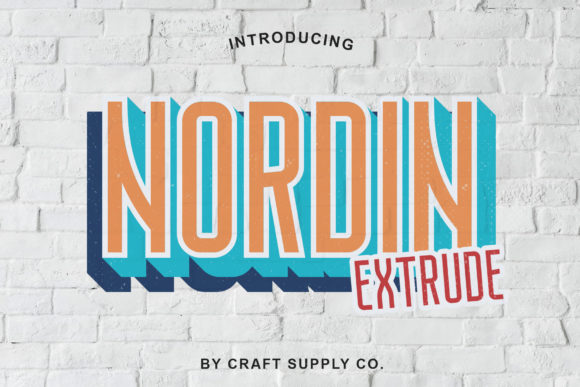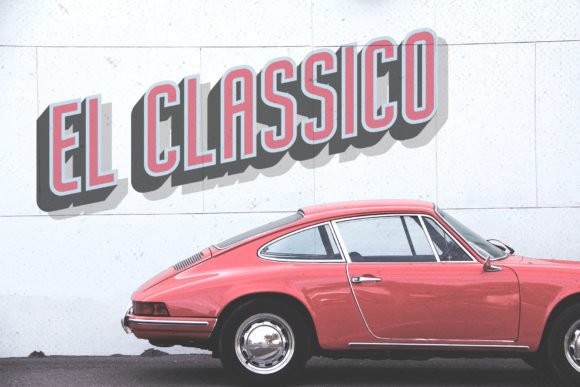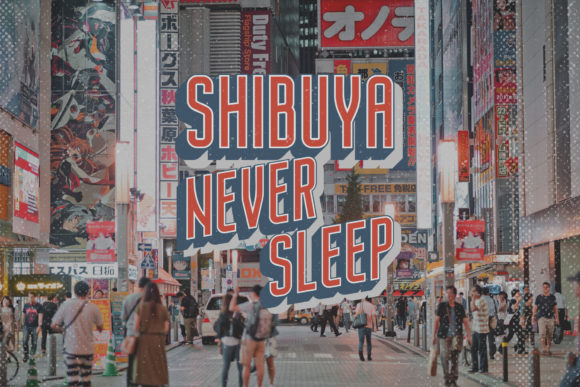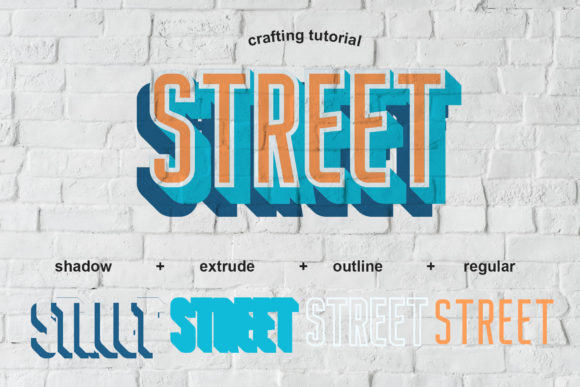
Nordin Extrude Family Font
About the Nordin Extrude Family Font
Unleash your creativity with Nordin Extrude Family Font, a versatile font perfect for a wide range of applications. The Nordin Extrude is am amazing sans serif font family. It includes 7 layerable variations for chromatic use.
It’s the result of an exploration of retro American and European bold sans serif lettering for advertising.
It’s suitable for logos, greeting cards, quotes, posters, branding, name cards, stationary, design titles, blog headers, art quotes, typography art, modern envelope lettering and book designs.
Nordin Extrude’s bold, retro-inspired aesthetic makes it ideal for headlines, posters, and branding projects requiring a strong visual impact. It excels in short, impactful text applications where its layered variations can add depth and visual interest. However, its weight and character spacing make it less suitable for body text or UI elements where readability is paramount. Avoid using it for long paragraphs or small sizes.
Pairing Nordin Extrude effectively depends on the desired effect. For a modern, slightly edgy feel, consider pairing it with a clean geometric sans-serif like Futura or a minimalist serif like Garamond. To emphasize its retro charm, a script font like Playfair Display or a more traditional serif like Didot could work well. Avoid pairing it with overly playful or decorative fonts, which might clash with its assertive character.
The overall personality of Nordin Extrude is confident and assertive, conveying a sense of vintage-inspired modernism. It’s best suited for brands and projects aiming for a bold, memorable, and slightly retro aesthetic.
Nordin Extrude Family Font Usage Examples
Nordin Extrude Family Font Example